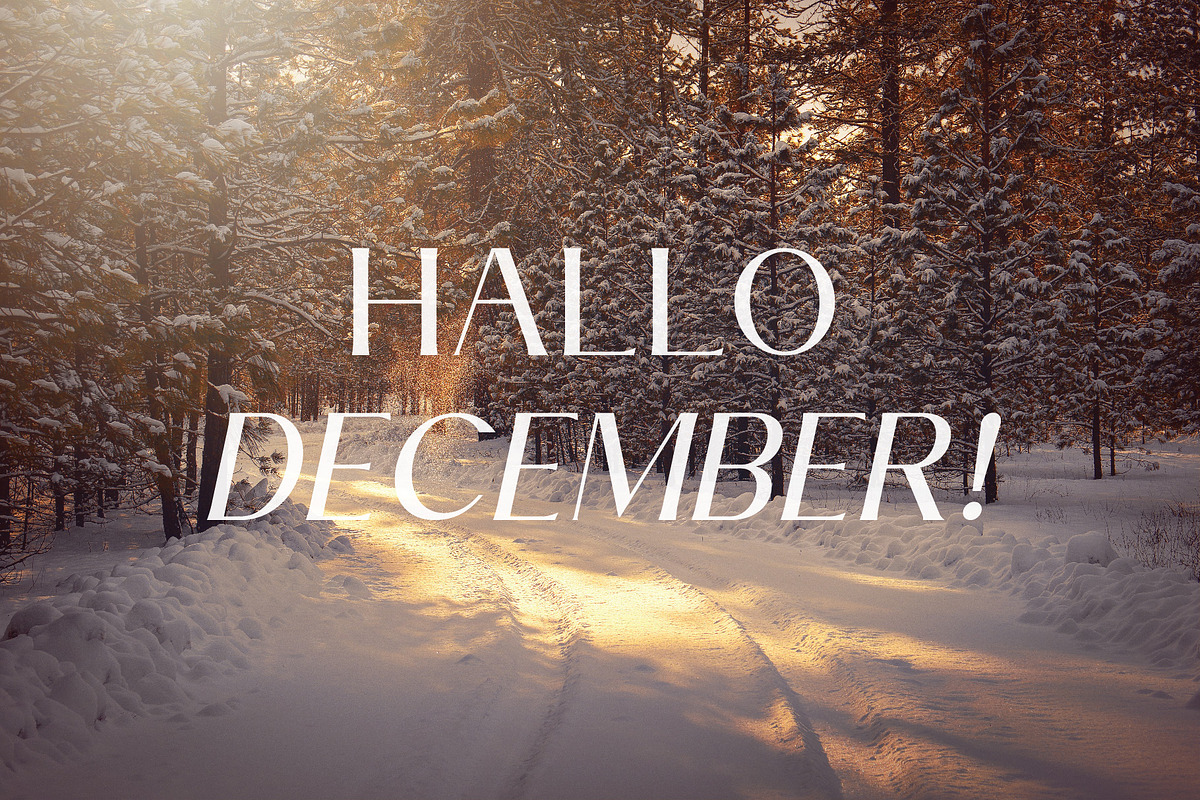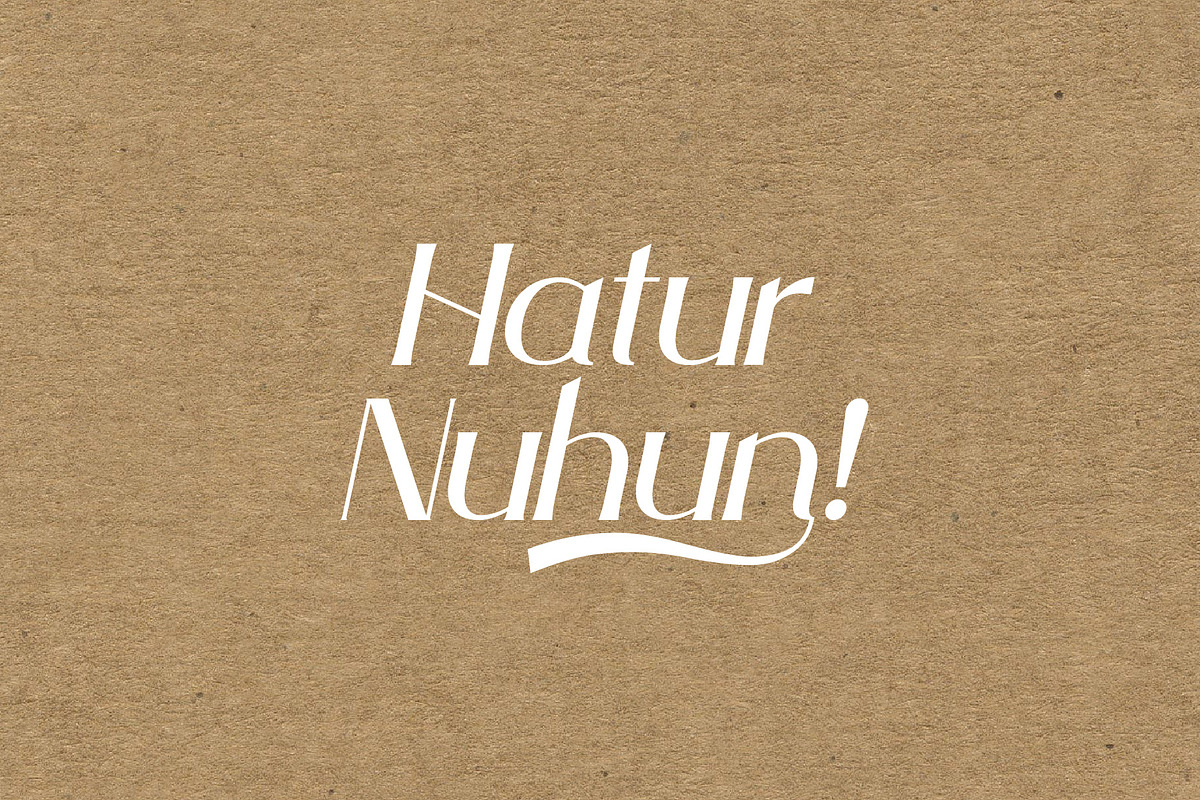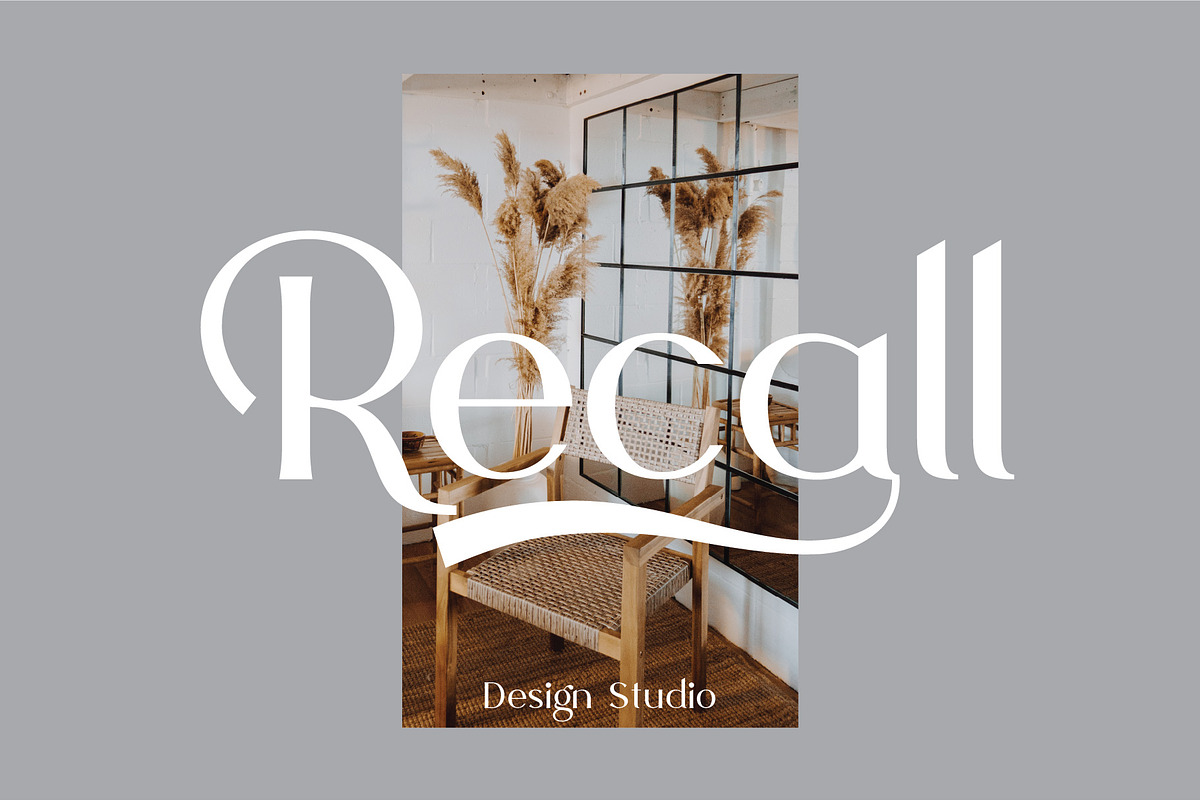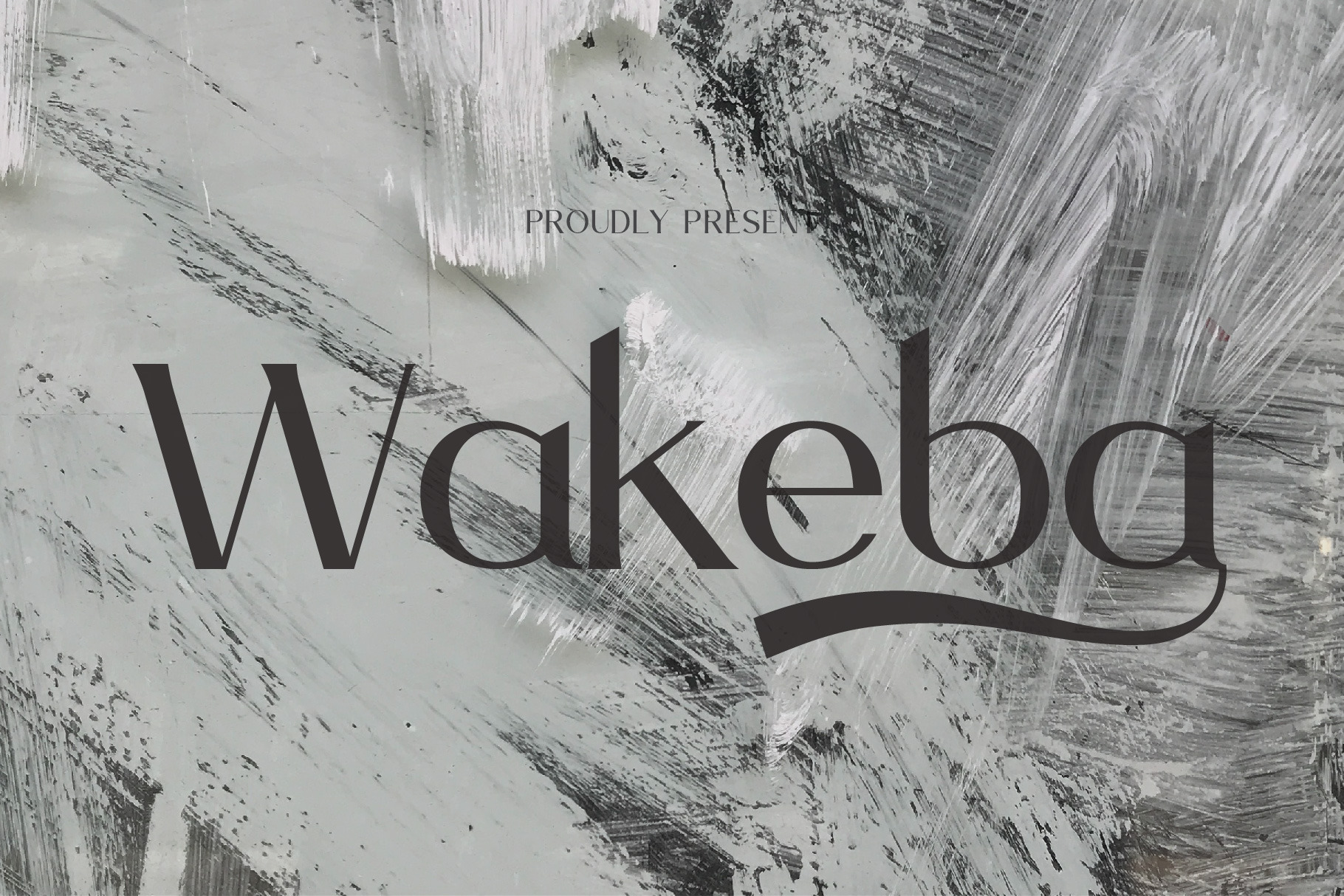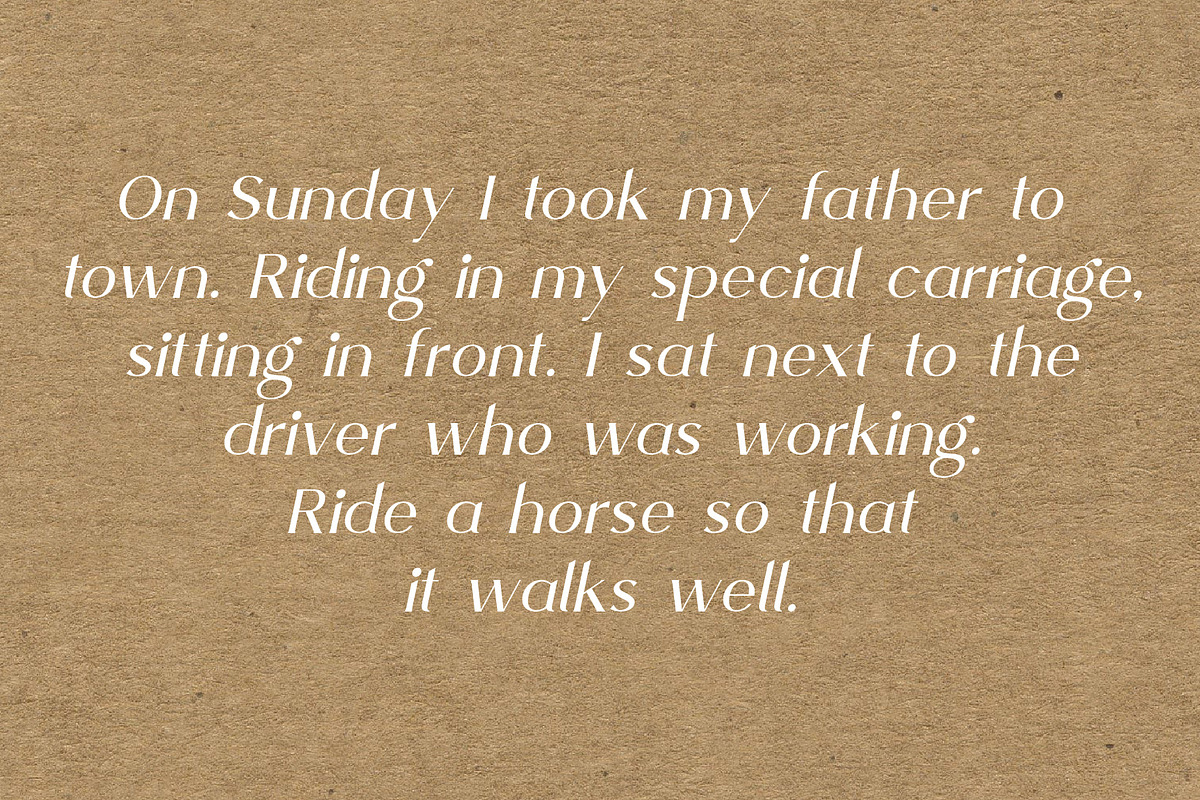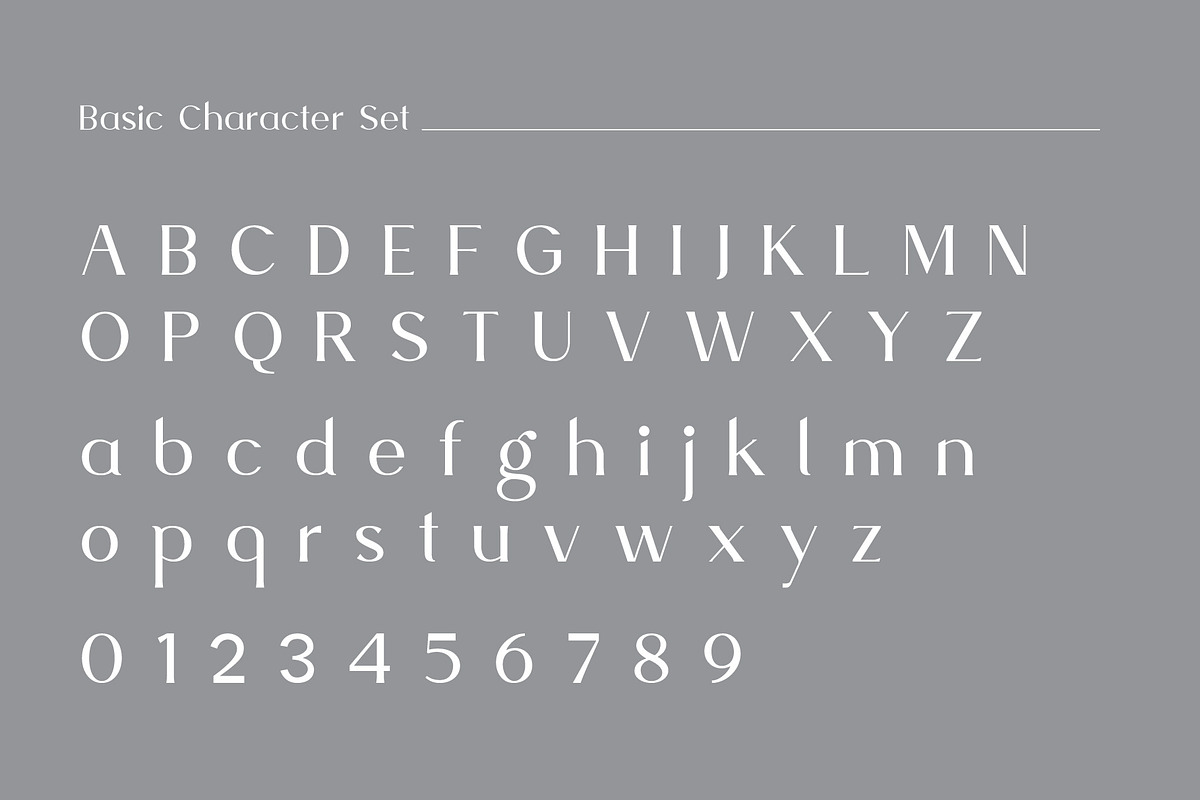
Wakeba Serif Font
Hello Everyone Wakeba is a serif type. Inside there are two options, namely Regular and Italic. In addition, this font also comes with stylistic set and Stylistic Alternates features. The font has an elegant, delicate and luxurious character. Very lucky for those of you who can have it. This font can be used to create wedding invitations, presentations, web, magazines, covers, and various other designs.